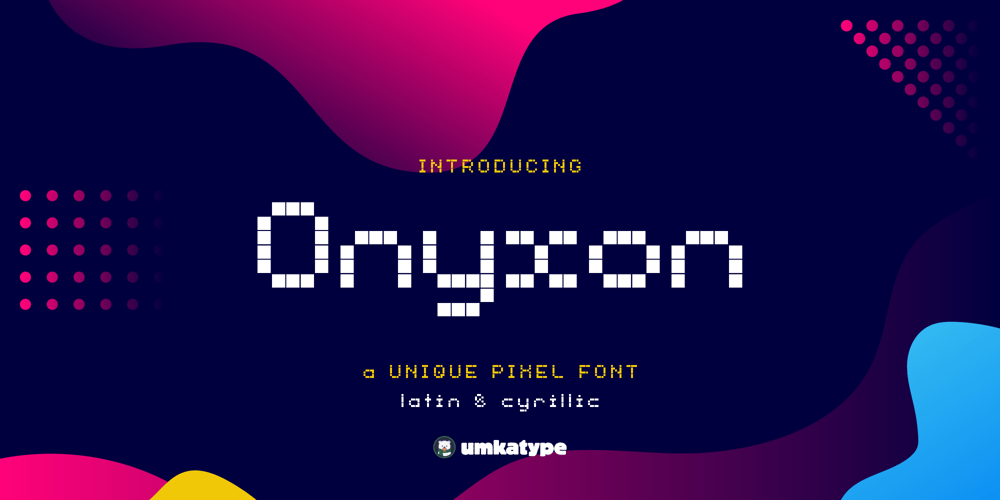
Onyxon Font Family was designed by Alper Çakıcı and published by Umka Type. Onyxon contains 1 styles and family package options. Onyxon is a cutting-edge dot font that seamlessly integrates Cyrillic characters, making it a powerhouse for multilingual projects. Its meticulous kerning ensures precision in both digital and print applications. With support for 68 languages, including Afrikaans, Albanian, Russian, Turkish, and many more, Onyxon combines modern design with global versatility, making it an essential tool for designers worldwide.Languages: Afrikaans, Albanian, Asu, Basque, Bemba, Bena, Breton, Catalan, Chiga, Cornish, Danish, Dutch, English, Faroese, Filipino, French, Friulian, Galician, German, Gusii, Icelandic, Indonesian, Irish, Italian, Kabuverdianu, Kalenjin, Kinyarwanda, Luo, Luxembourgish, Luyia, Machame, Makhuwa-Meetto, Makonde, Malagasy, Manx, Morisyen, North Ndebele, Norwegian Bokmål, Norwegian Nynorsk, Nyankole, Oromo, Portuguese, Quechua, Romansh, Rombo, Rundi, Russian, Rwa, Samburu, Sango, Sangu, Scottish Gaelic, Sena, Shambala, Shona, Soga, Somali, Spanish, Swahili, Swedish, Swiss German, Taita, Teso, Turkish, Uzbek (Latin), Volapük, Vunjo, Zulu